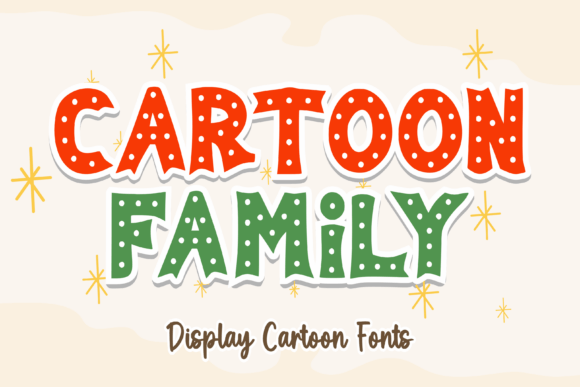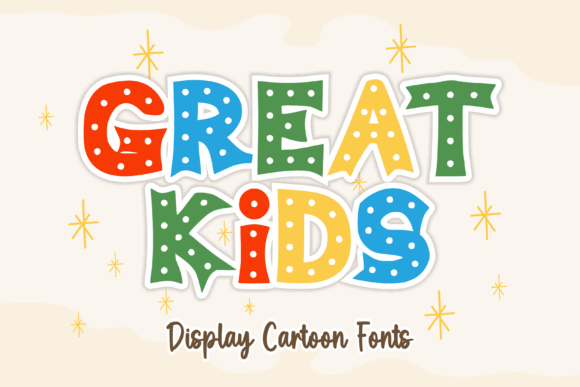
Deck the Halls with Holiday Cheer
As the holiday season approaches, designers are on the lookout for fonts that capture the essence of the festive spirit. For many of us, the moment we break out the holiday decorations and start brainstorming gift ideas is the moment we know it’s time to get creative. And what better way to get into the holiday mood than with a font that embodies the warmth and joy of the season?
Meet “Holiday,” a charming Cartoon font designed to add a touch of festive cheer to your designs. This delightful font is perfect for creating eye-catching holiday posters, crafting cheerful t-shirt graphics, and embellishing stickers with holiday magic. With its Capital Letter style, “Holiday Font” is a valuable addition to any designer’s toolkit, making it easy to spread the joy of the season with style and panache.
Holiday Font Key Features
- Font Family: Holiday Font is a unique, hand-drawn font designed to evoke the feeling of a festive holiday season.
- Unique Characteristics: The font features intricate, hand-drawn details, making it perfect for creating eye-catching holiday-themed designs, invitations, and cards.
Holiday Font Review
I recently had the chance to work with the Holiday Font, and I must say it’s a mixed bag. There are some aspects that shine ✨, but there are also some limitations that hold it back.
- The font’s playful, festive feel is perfect for holiday-themed projects ✨. It’s hard to deny the magic of walking into a room decorated with bold, colorful typography.
- The font is highly customizable, with a wide range of weights and styles to choose from ✨. This makes it easy to tailor the font to your specific project’s needs.
- The font is highly legible, even at small sizes ✨. This is crucial for holiday projects where text may be displayed on a variety of devices and surfaces.
- The font can feel a bit too playful for some projects ⚠️. If you’re looking for a more subdued or professional look, you may find the font to be too loud.
- The font’s design can be a bit too reminiscent of other, more generic fonts ⚠️. This can make it harder to stand out in a crowded design landscape.
- The font’s support for certain languages may be limited ⚠️. This could be a problem for projects that require text in multiple languages.
The Holiday Font is a solid choice for holiday-themed projects, but it may not be the best fit for every project. With its playful feel and high level of customization, it’s perfect for those looking to add a bit of festive flair to their designs. However, its limitations may make it less appealing to designers looking for a more subdued or professional look.
Tips for Getting the Most Out of Holiday Font
Use Holiday Font for holiday-themed designs, such as Christmas cards, New Year’s invitations, or Easter decorations.
Pair Holiday Font with festive graphics, like holly leaves, snowflakes, or Easter eggs, to create a cohesive look.
Experiment with different font sizes and colors to add depth and visual interest to your designs.
Q: What is the recommended font size and line height for using the Holiday Font?
For optimal readability, we recommend using the Holiday Font at a minimum size of 14 points and a line height of 1.5 to 2 times the font size. This will ensure that the text is clear and easy to read, while still maintaining the festive and decorative feel of the font.